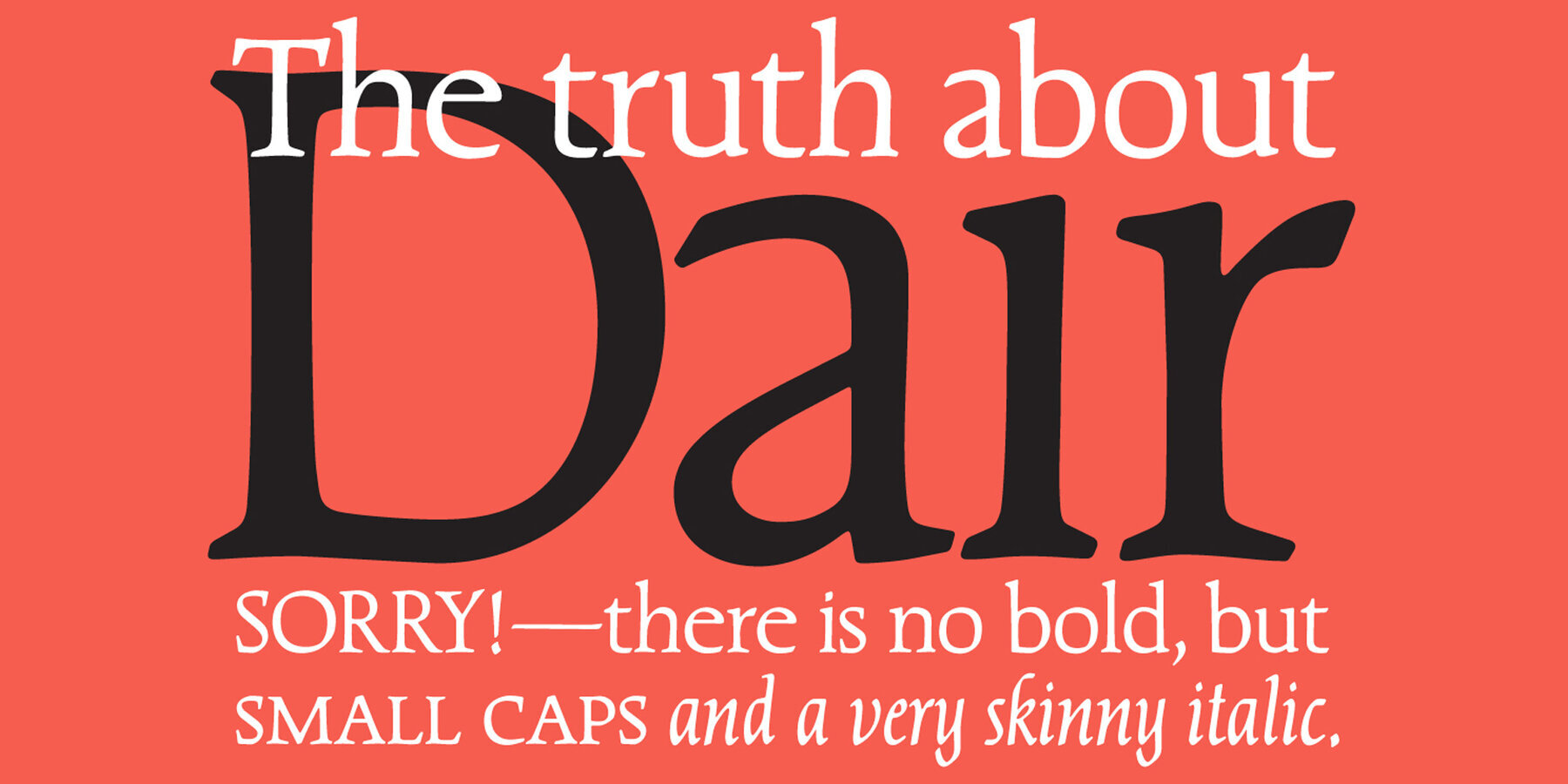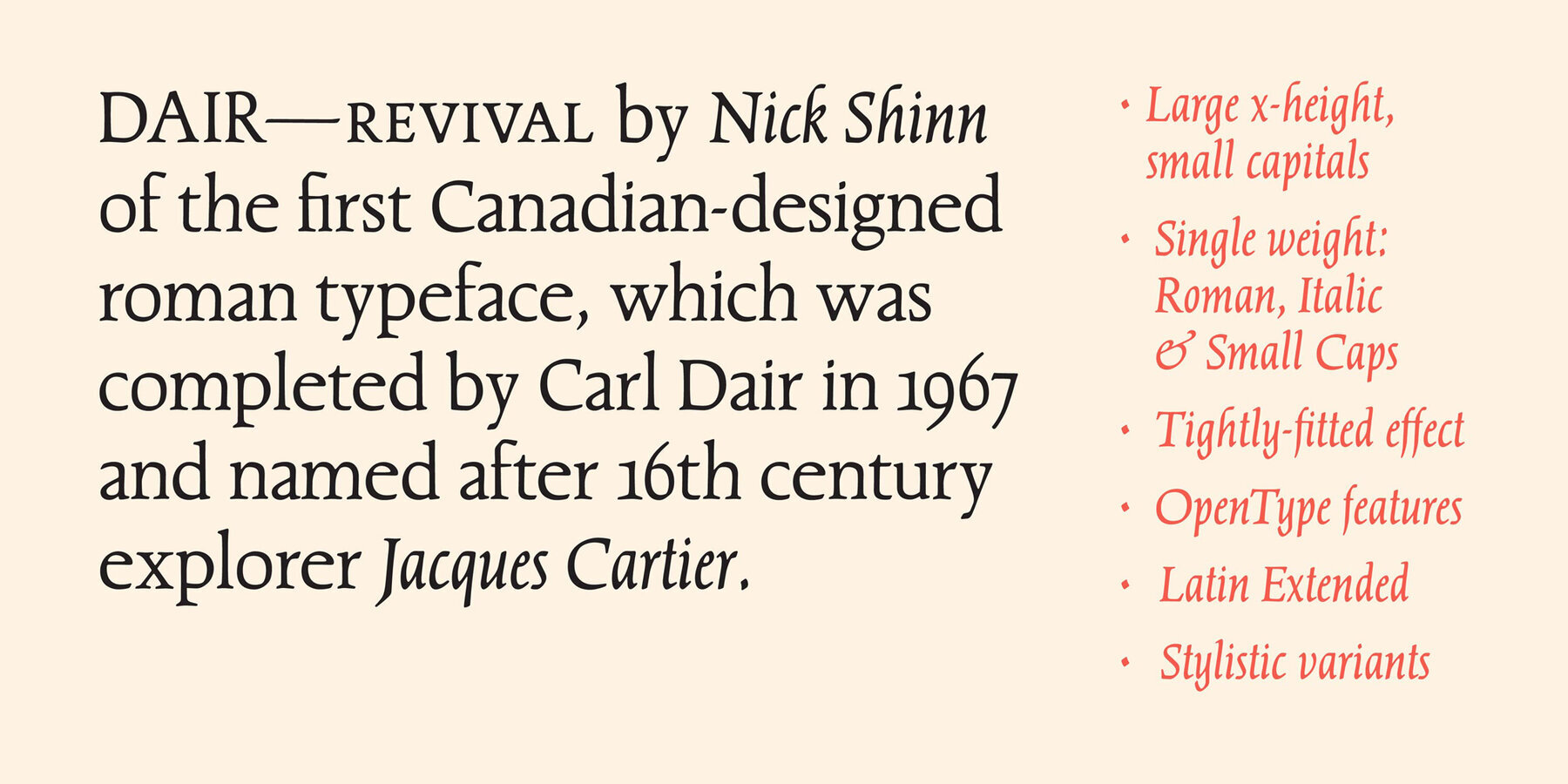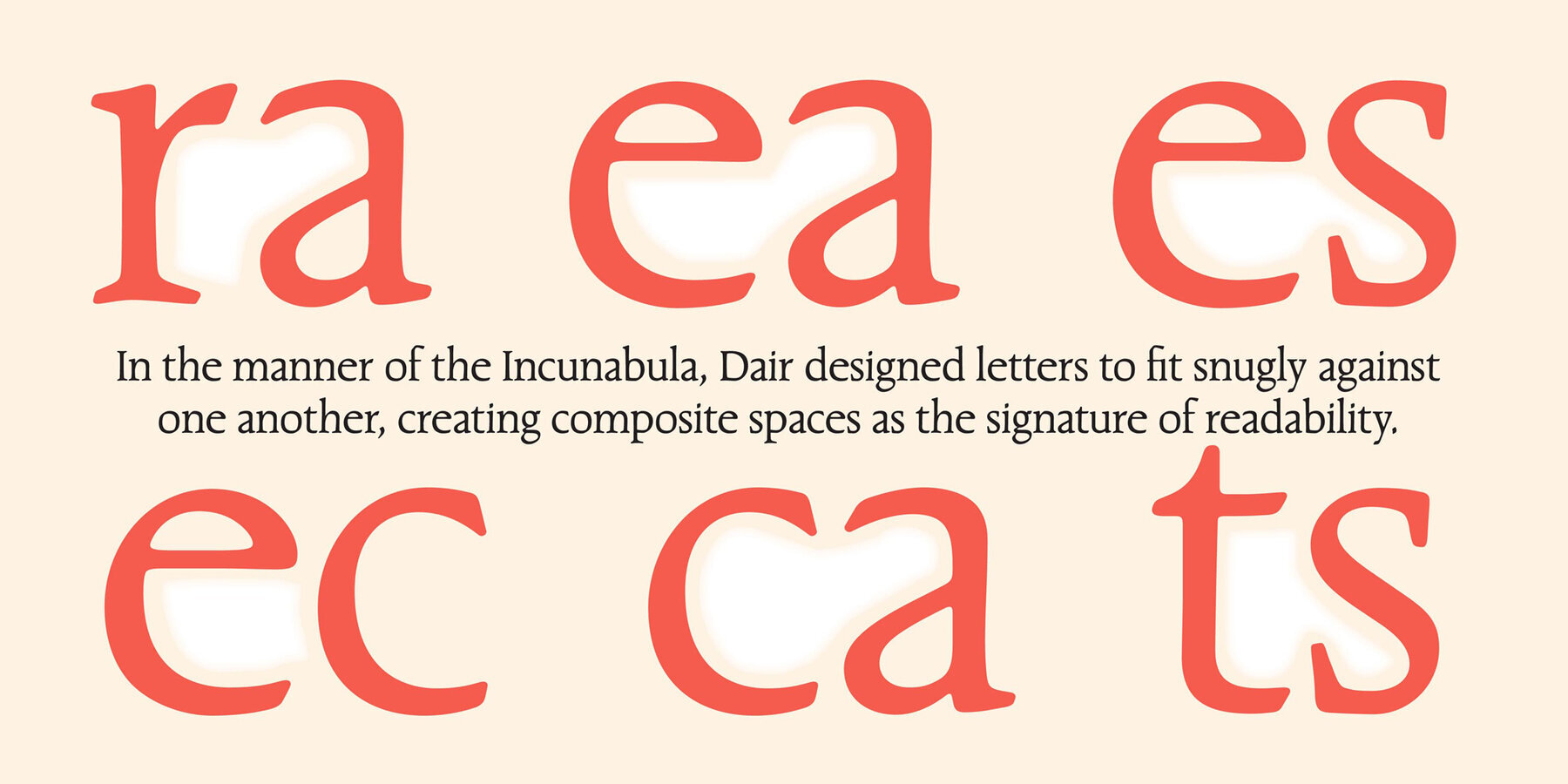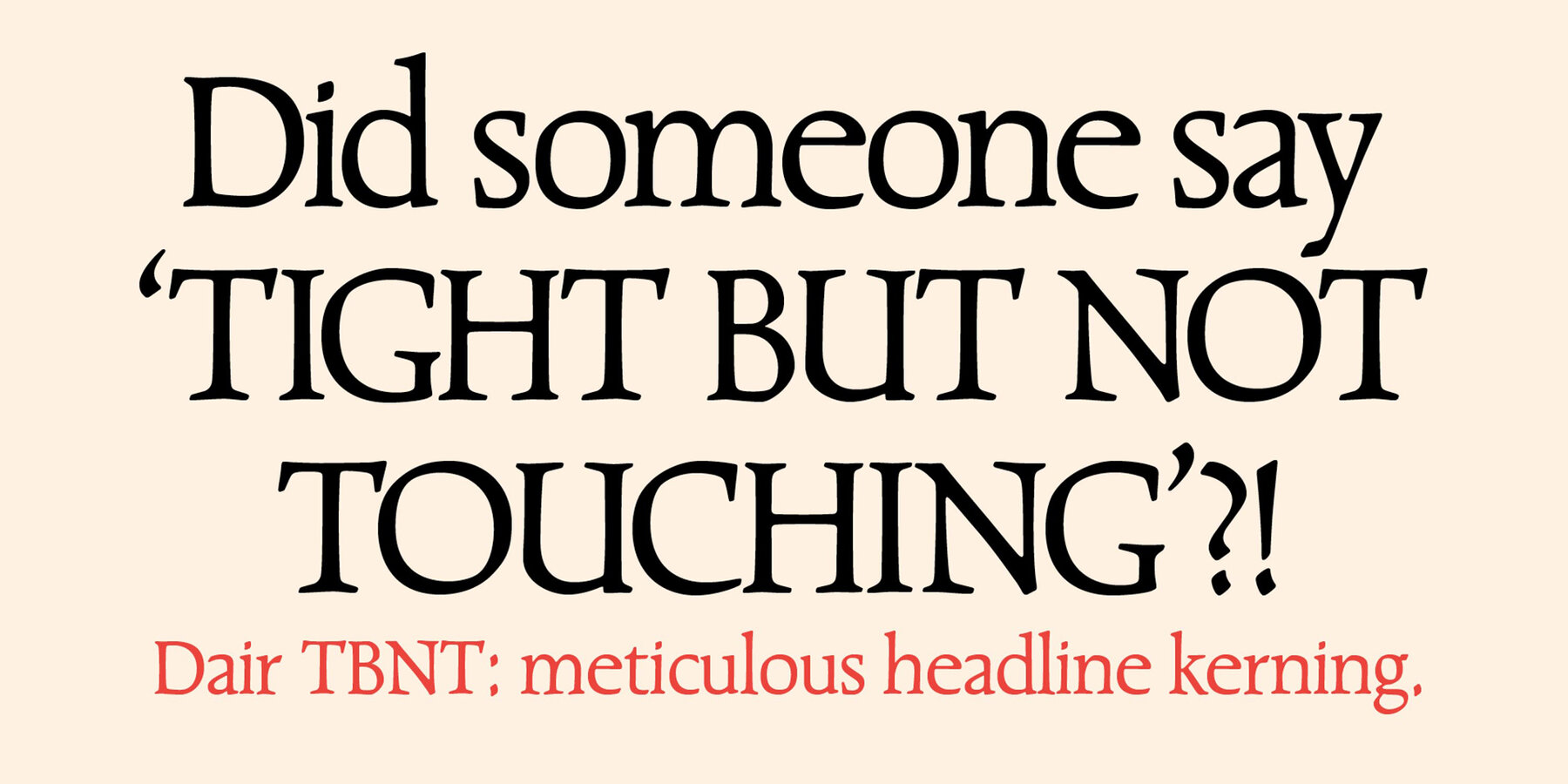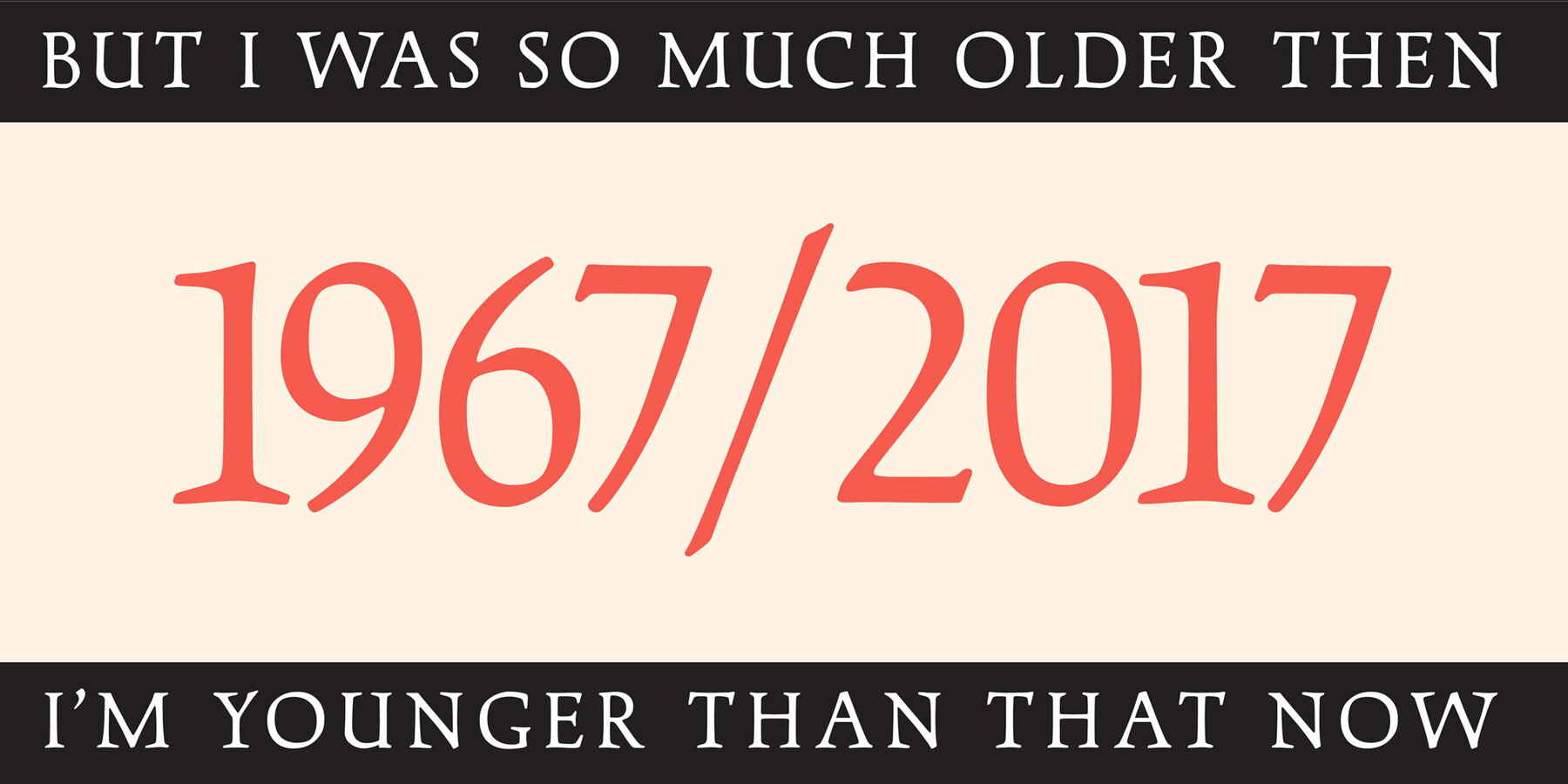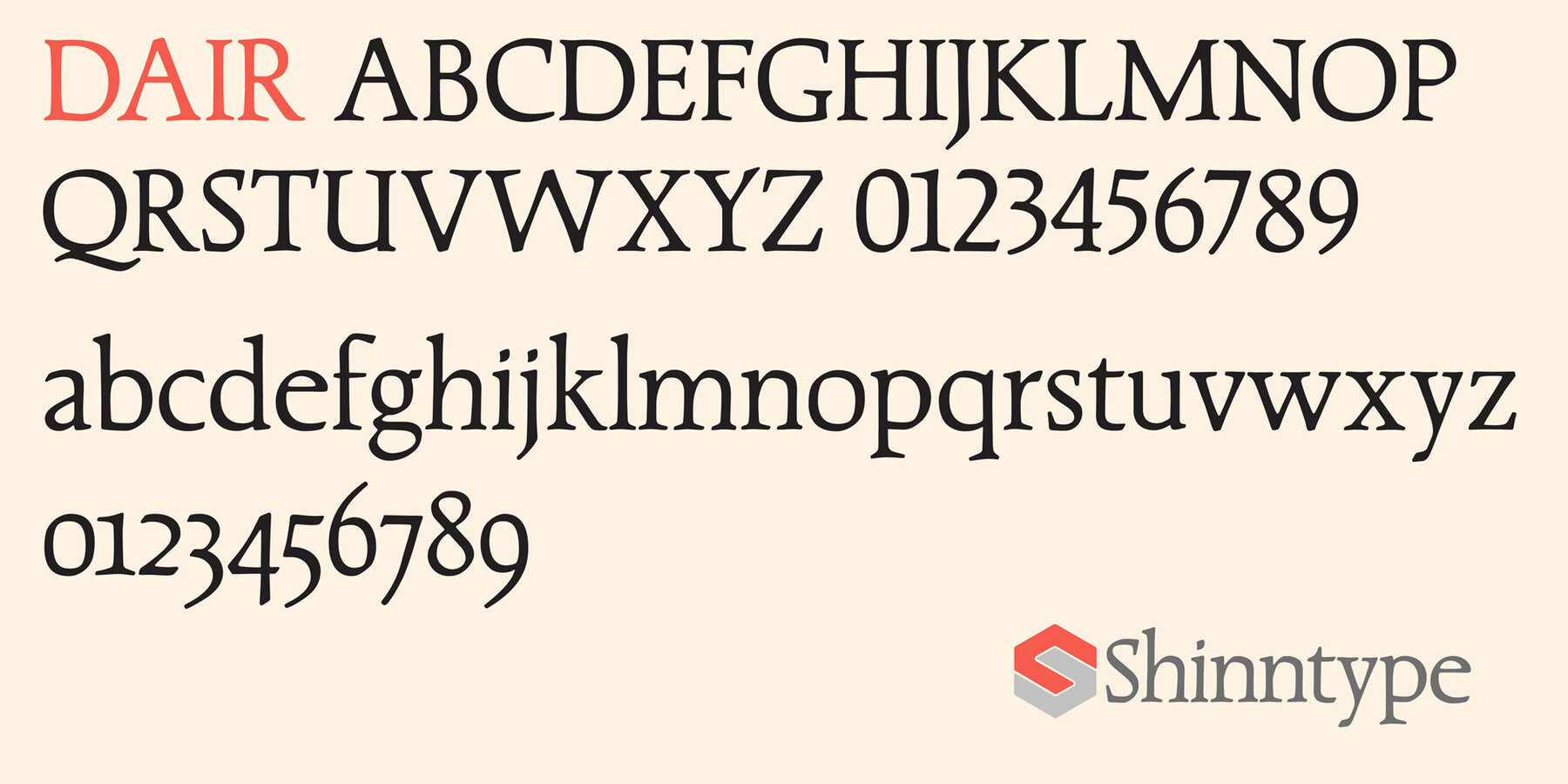
Dair Font
A meticulous restoration of the first Canadian-designed roman typeface, which was completed by Carl Dair in 1967 and named after 16th century explorer Jacques Cartier. The typeface is characterized by ascenders which tower dramatically above the capitals, by condensed italic minuscules inclined at a mere 6 degrees—and by its profound empathy for the core principles of the roman type form, originating over 500 years ago.